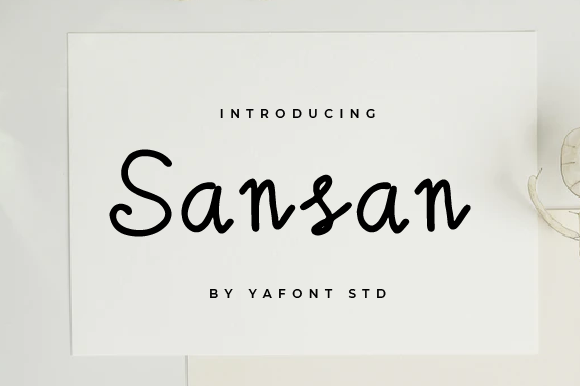
About Sansan Font
Sansan is a delicate handwritten font. This gentle font will look gorgeous on a variety of design ideas. It will add a joyful and romantic touch to each of your projects!